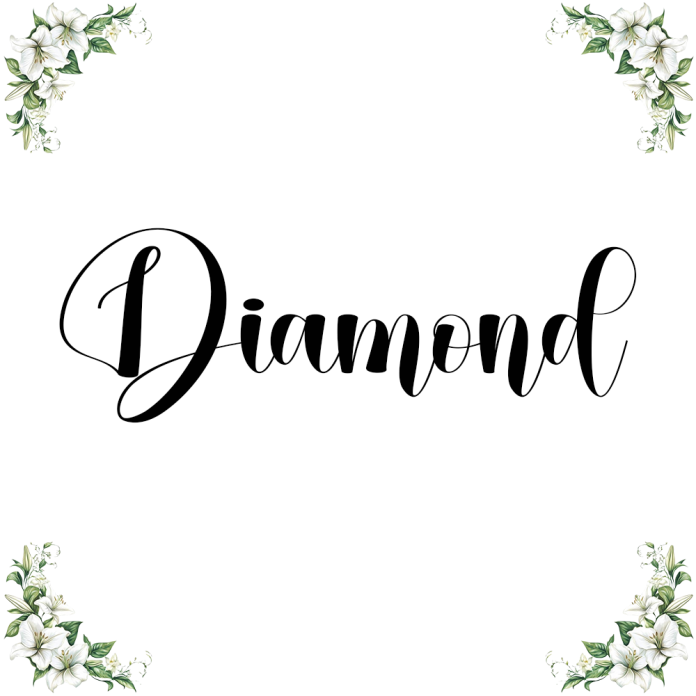
Diamond Font is a cool and modern Sans Serif font. Whether you’re using it for crafts, digital design, presentations, or making greeting cards, this font has the potential to become your favorite go-to font, no matter the occasion.